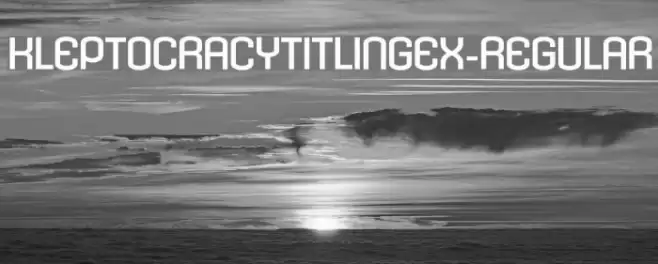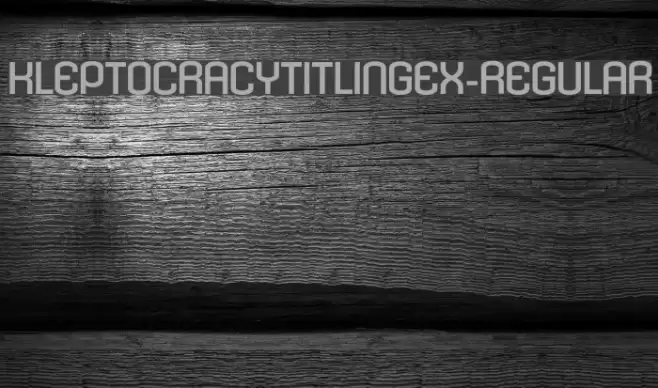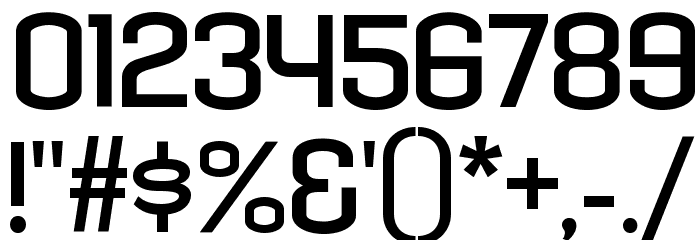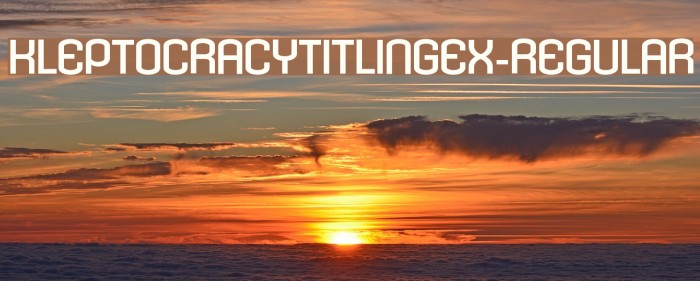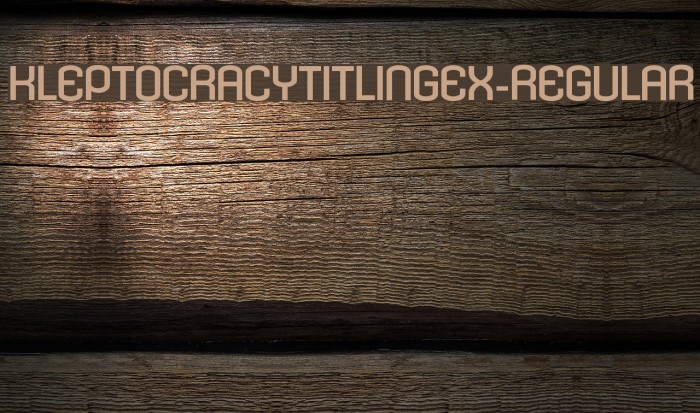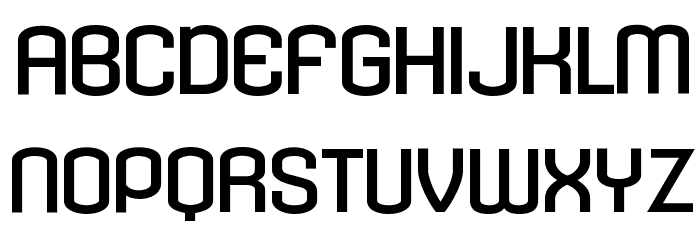
KleptocracyTitlingEx-Regular Font
KleptocracyTitlingEx-Regular Description
This font features a bold, geometric design with clean lines and a modern aesthetic. The characters are uniformly structured, offering a sense of balance and harmony. The uppercase letters are particularly striking, with a consistent height and width that create a cohesive look. The numbers and special characters maintain the same design principles, ensuring versatility across different uses. The font's style is both contemporary and timeless, making it suitable for a wide range of applications.
A bold, geometric font with a modern and balanced design from Uncategorized fonts.
- Proposed Projects: Ideal for branding, headlines, posters, and digital media where a strong, modern presence is desired.